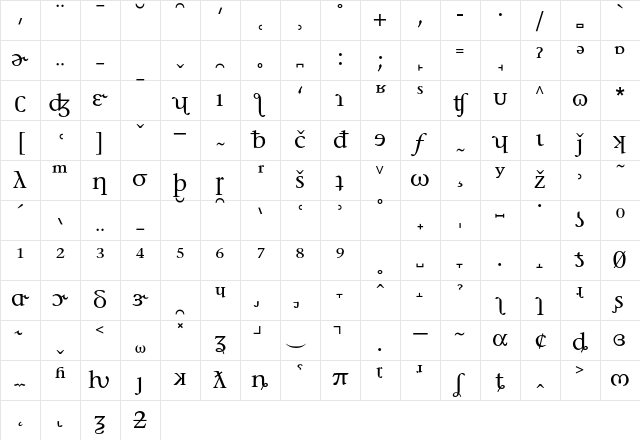
ITC Stone Serif Phonetic Alternate
Style: Phonetic Alternate
Complete ITC Stone Serif Phonetic Alternate glyph index. Displaying only characters natively supported by ITC Stone Serif Phonetic Alternate font.
Design Context for ITC Stone Serif
ITC Stone Serif carries the refined structure of traditional serif typography, with bracketed terminals and considered proportions that communicate credibility and craft.